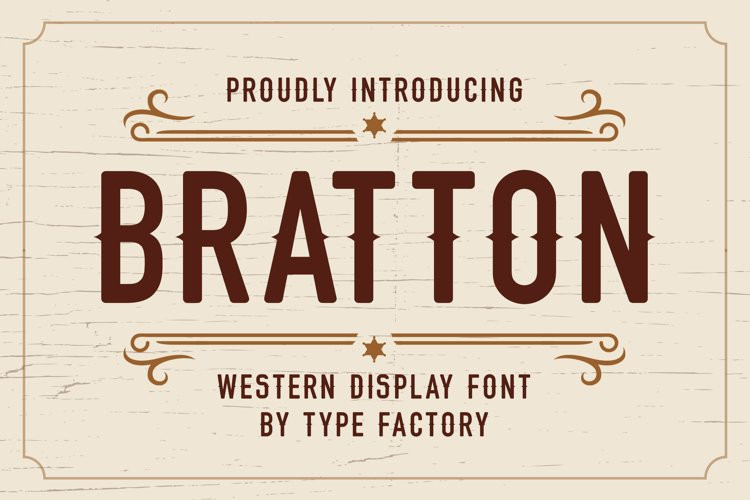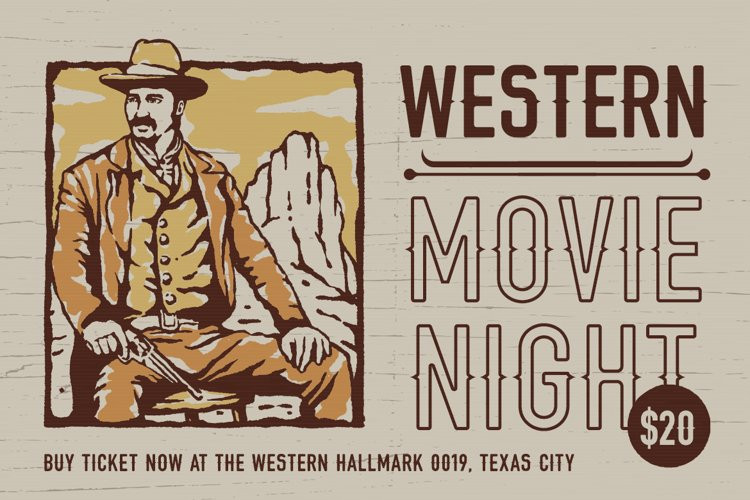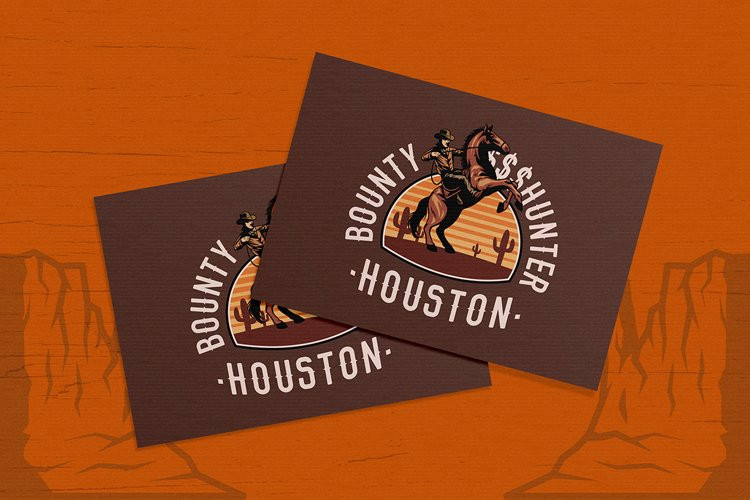
Bratton Font
Bratton FontBratton is a western looking display font.
Whether you are using it for cartoon-related designs, children’s games, quotes, titles, brand names, book covers, posters, or just any creation that requires a touch of beauty, this font is a great choice.